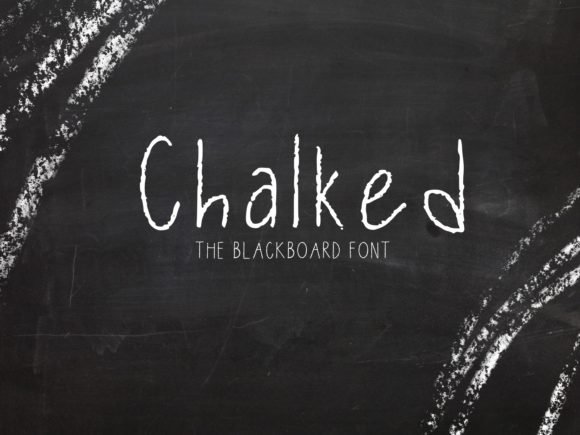
The Joy of Handwritten Fonts: Discovering Chalked Font
Who among us hasn’t scribbled a quick note on a chalkboard at some point in their lives? The tactile experience of holding a piece of chalk, the sound of it scratching against the board, and the instant gratification of seeing your words appear in a messy yet charming handwriting style. It’s a moment that sparks creativity and nostalgia, and it’s precisely this feeling that the Chalked Font embodies.
This cute, quirky, and original handwritten font is designed to evoke the same sense of playfulness and wonder that we experience when we’re surrounded by chalkboards and crayons. With its neat and interesting style, the Chalked Font is ideal for a variety of designs, mainly those related to school or children. For designers, this font is a valuable asset, offering a unique touch that can add character to any project.
- Unique Characteristics: This font features a unique chalkboard-inspired design, with subtle texture and imperfections that evoke a sense of hand-written charm.
- Style Variations: The font comes in multiple styles, including Regular, Italic, Bold, and Bold Italic, allowing designers to add depth and visual interest to their work.
Chalked Font Review
Overall, I think the Chalked Font is a lovely addition to any design project. It’s a beautiful, handwritten font that adds a touch of elegance and sophistication to text. ✨
- The Chalked Font is highly versatile and can be used in a variety of settings, from invitations to product labels.
- The font has a high level of expressiveness, making it perfect for designers who want to convey a sense of emotion and personality.
- The Chalked Font is also highly readable, even at small font sizes, making it a great choice for projects where text will be displayed in a variety of contexts.
- The Chalked Font may not be the best choice for projects where a more modern or minimalist aesthetic is desired.
- The font may be difficult to read in certain lighting conditions, due to its handwritten nature.
- There may be some compatibility issues with certain software or operating systems.
The Chalked Font is a solid choice for designers who want to add a touch of personality and elegance to their projects. While it may have some limitations, it’s a beautiful font that is well-suited to a variety of uses.
Tips for Getting the Most Out of Chalked Font
Here are some tips to get the most out of Chalked Font:
- Use Chalked Font for titles and headings to add a touch of whimsy.
- Pair Chalked Font with other fonts to create a unique and eye-catching combination.
Here are some common use cases for Chalked Font:
- Wedding invitations and decorations.
- Choose a soft, muted color palette to match the vintage theme.
- Select a beautiful, hand-drawn image to pair with the Chalked Font.
- Use Chalked Font for the main invitation text, and a traditional font for the details.
- Paper texture or watercolor effect to give it a more vintage feel.
- Soft, pastel colors to match the elegance of the design.
- Choose a bold, eye-catching color to grab attention.
- Select a fun, playful image to pair with the Chalked Font.
- Use Chalked Font for the menu item names, and a clear font for the descriptions.
- Chalkboard texture or a distressed effect to give it a more authentic feel.
- Simple, modern colors to balance out the rustic design.